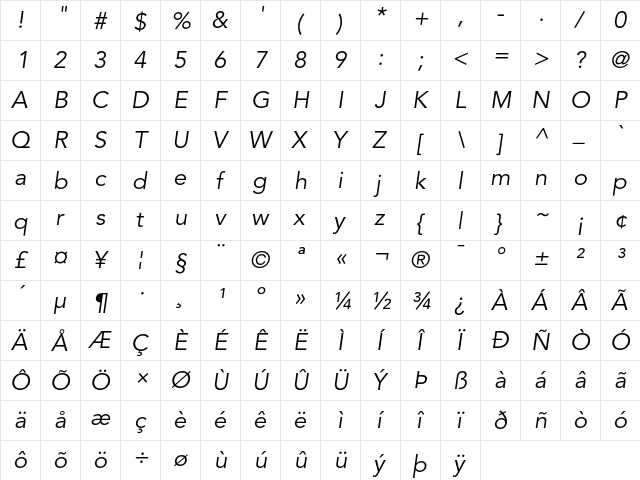
Avenir Regular Font Preview
Avenir Regular
Design Context for Avenir Typeface
Avenir offers clean, dependable letterforms without strong stylistic allegiance, making it a practical choice for designers who need flexibility.
Pro Tip: Use Avenir in both headline and body roles to test its range before committing to a single application.